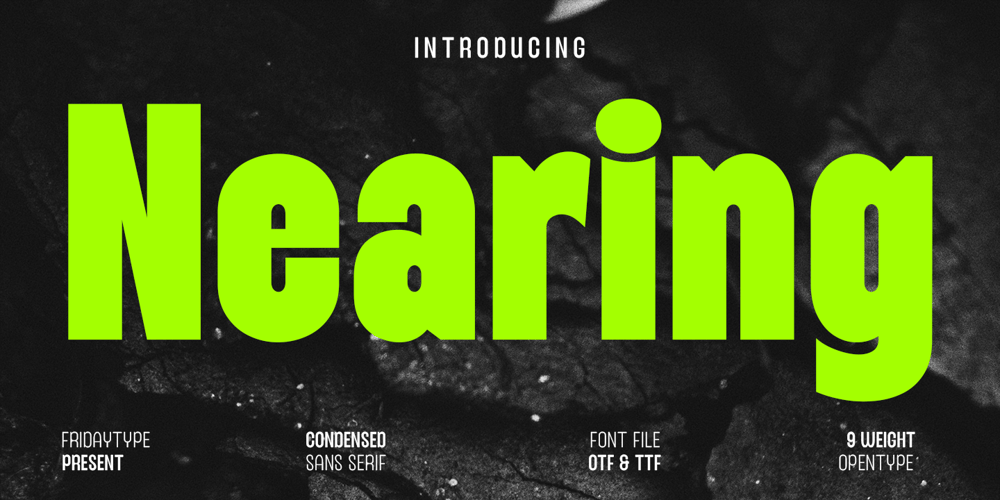
Nearing Condensed Sans Font Family was designed by Farida Kurniawan and published by Fridaytype. Nearing Condensed Sans contains 9 styles and family package options. Nearing Condensed Sans brings a bold and dynamic aesthetic to your portable workout equipment packaging. Its sleek design not only catches the eye but also communicates high performance and quality. Nearing comes with 9 weights. All these features make the font a great choice for graphic designers and art directors for logos, wordmarks, short text, etc.Feature: Uppercase & lowercase Punctuation & symbols Stylistic Set International characters (Multilingual) OpenType Features Variable formats If you have any questions regarding my products, please do not hesitate to write a message.Thanks and have a wonderful dayFridaytype